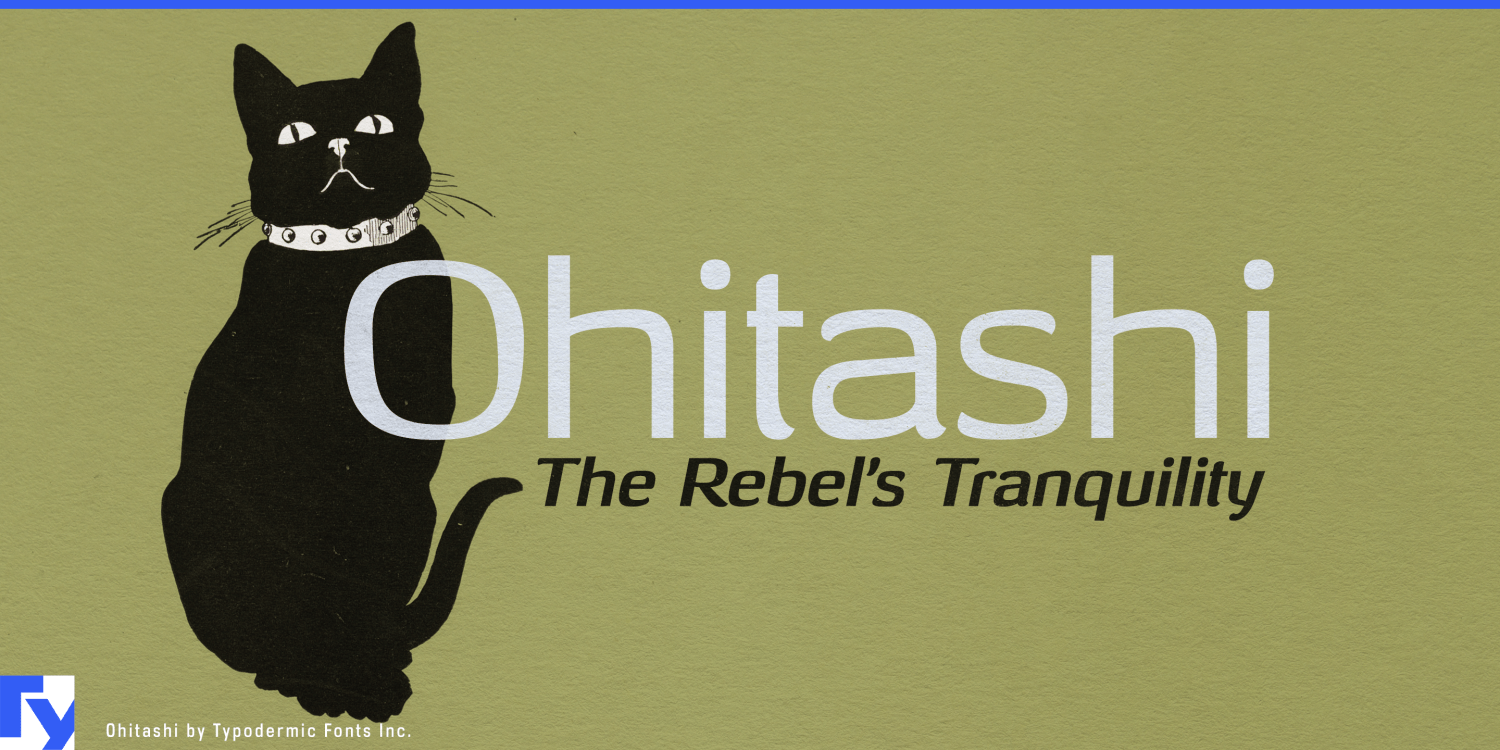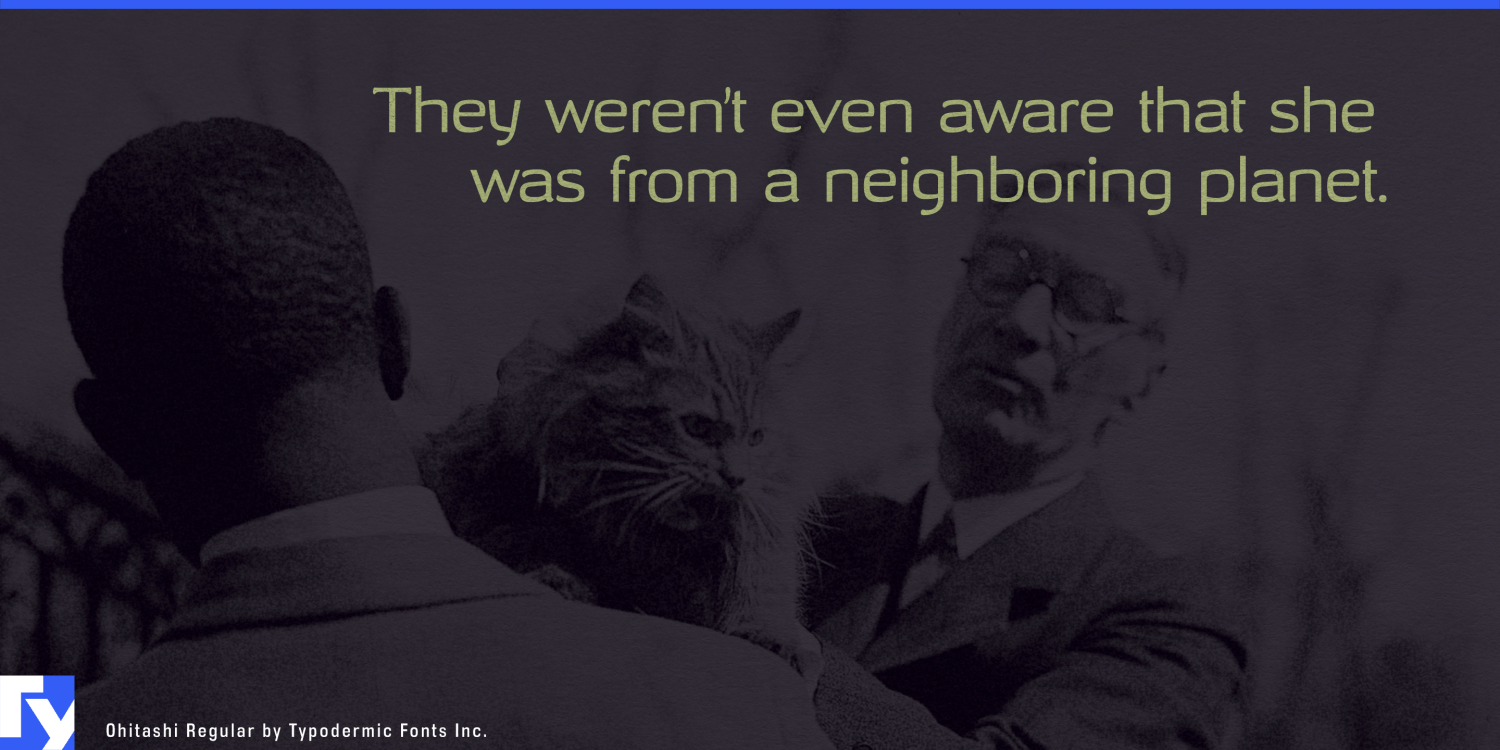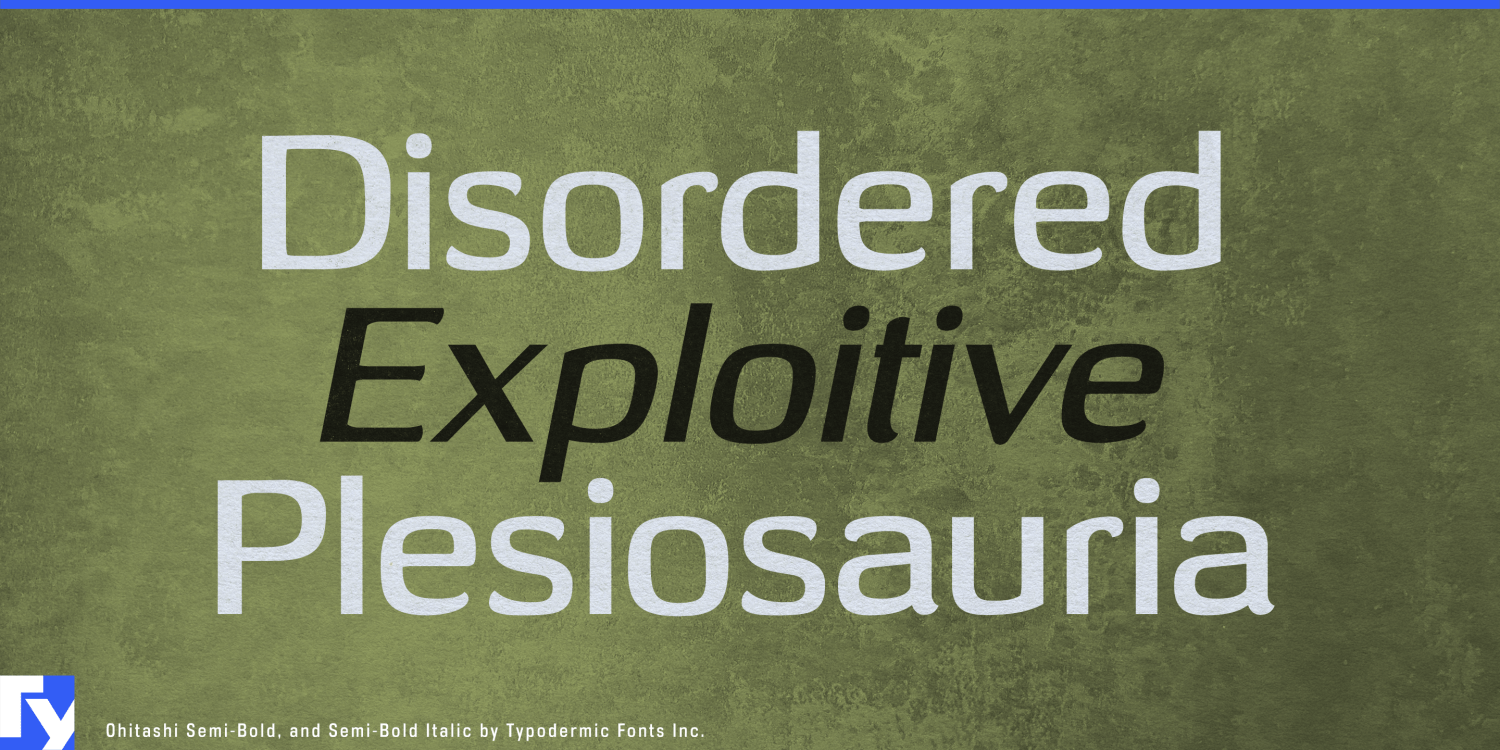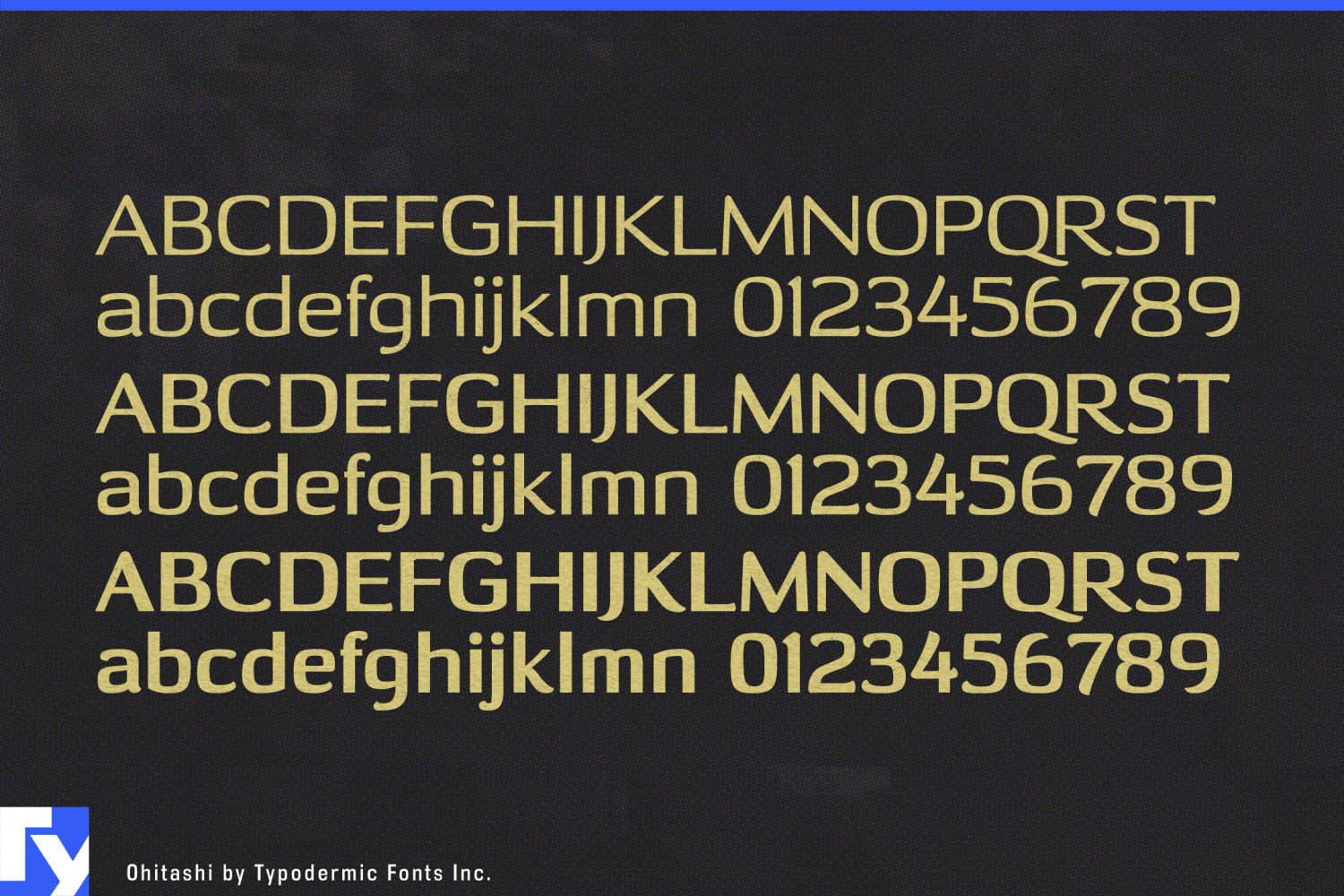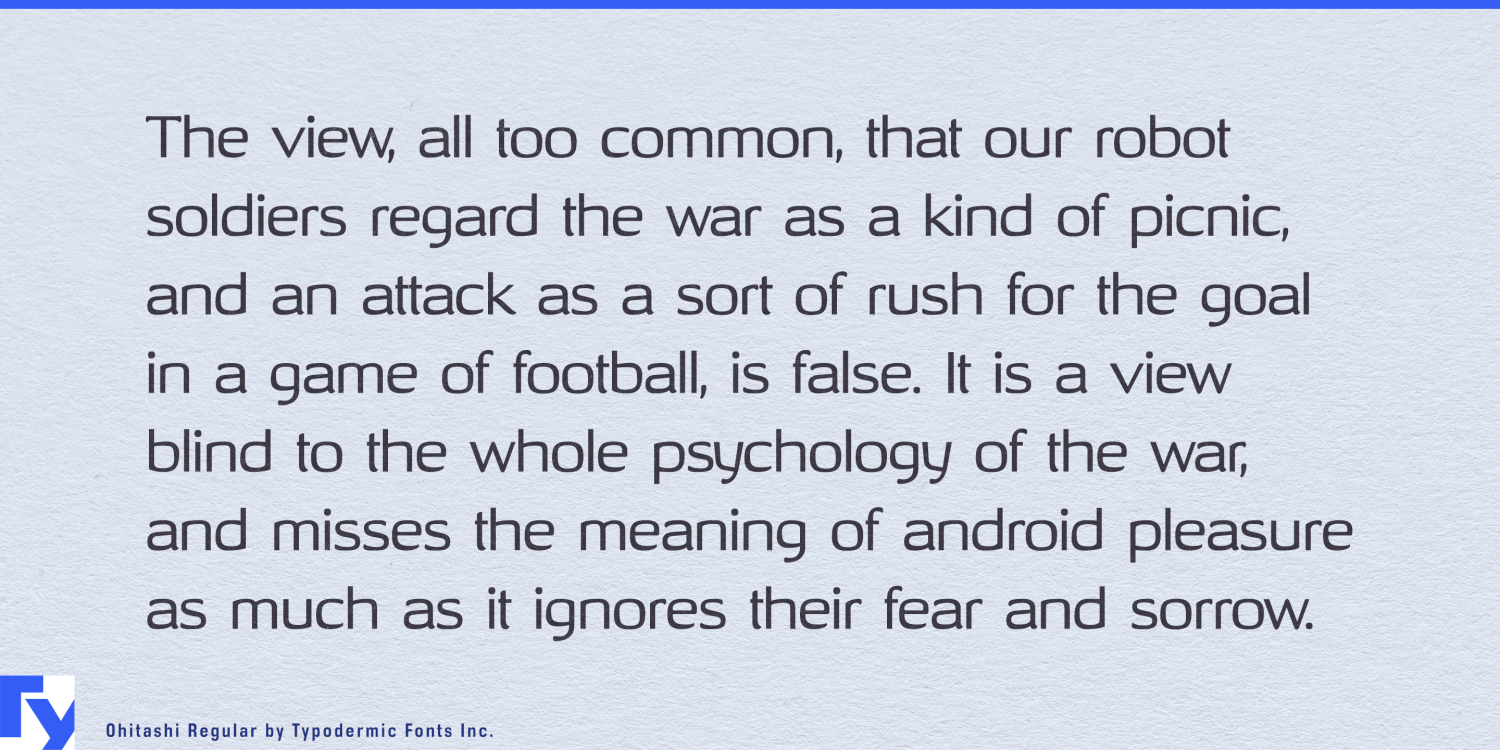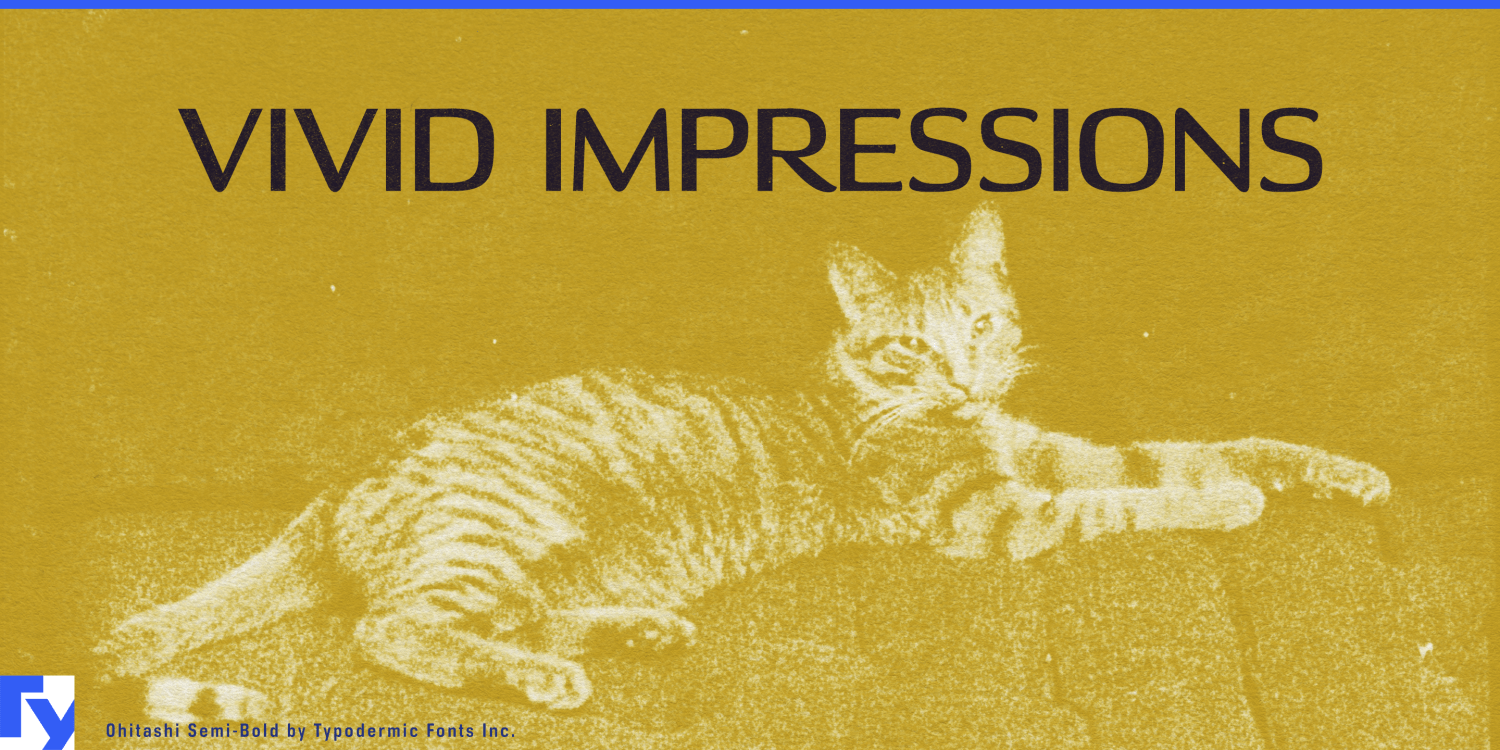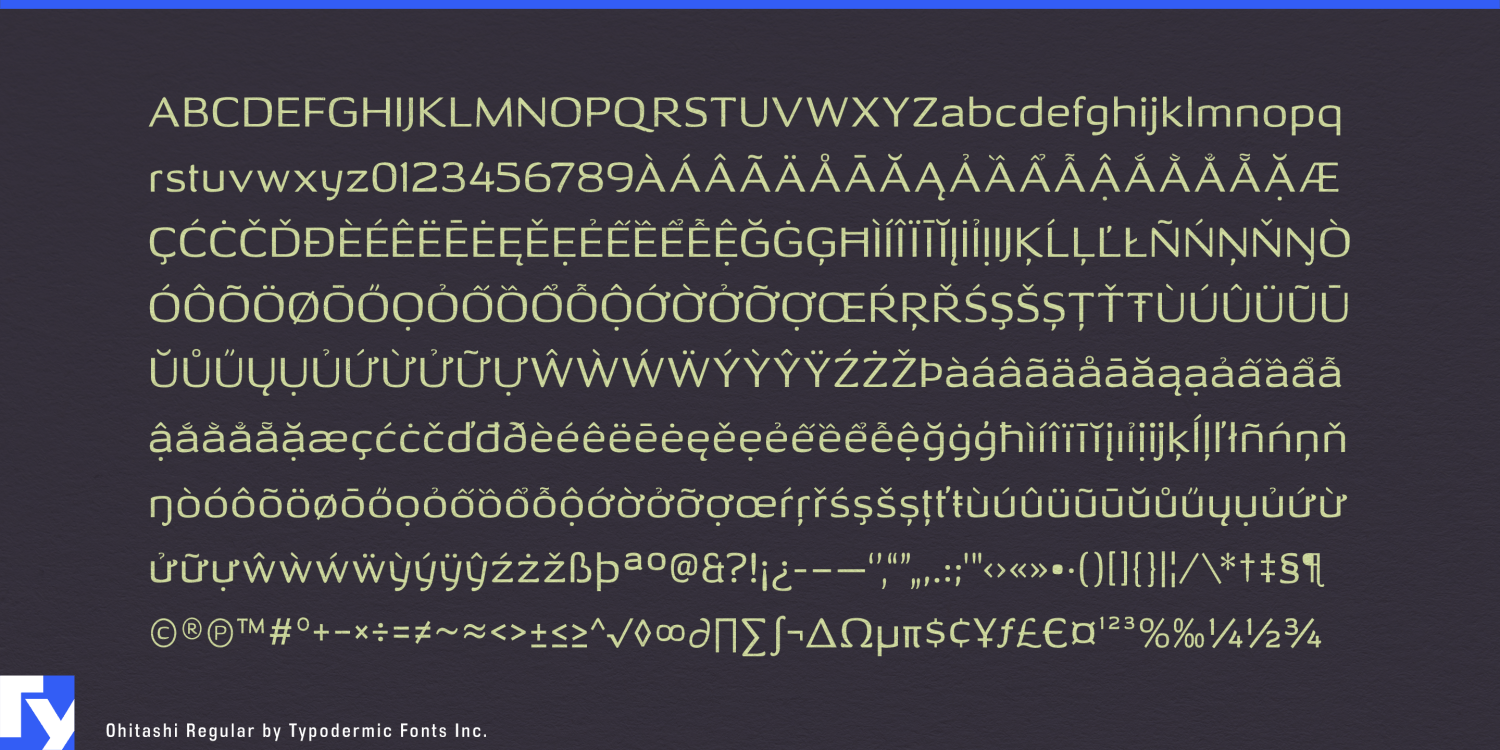
Ohitashi
Buy NowTechnology brands often need typography that looks completely at home beside engineered products without making the entire identity feel engineered. Strict geometric sans serifs can reinforce the technology but also amplify its coldness; softer typefaces may introduce warmth while looking disconnected from the product. Ohitashi occupies the useful space between them.
Its superelliptical structure gives the letterforms an underlying precision that harmonizes with hardware, interfaces, diagrams, and technical product photography. Against that geometry, tapered terminals and small calligraphic gestures introduce visible human decisions. The result is controlled without looking sterile and approachable without becoming soft or informal.
That balance makes Ohitashi particularly useful for technology designed to enter ordinary human spaces. Smart-home systems, connected appliances, home-energy equipment, battery storage, EV charging, environmental controls, and domestic robotics all have to communicate technical capability to people who will actually live with the products. Ohitashi can sit alongside a charging unit, control panel, sensor, or piece of household hardware without competing with its industrial design. Product names and campaign headlines carry the superelliptical character more visibly, while supporting copy can remain part of the same typographic system.
Medical and assistive technology present a similar problem. Diagnostic devices, rehabilitation equipment, mobility products, and patient-facing hardware need technical credibility, but an aggressively technological identity can create unnecessary distance. Ohitashi’s geometry belongs comfortably around precision equipment while its humanist details keep the typography from reinforcing the machinery at every level of the communication.
The same principle extends to refined industrial products such as lighting systems, architectural controls, acoustic equipment, and other hardware intended to share space with people. Here the typeface can accompany carefully designed objects rather than visually impersonating them. It provides enough structure for product families, launch graphics, packaging, websites, and technical literature to feel related without coating everything in the usual vocabulary of futuristic typography.
The superellipse supplies the compatibility; the humanist details supply the distance from pure geometry. Ohitashi can coexist with technology while leaving room for the person on the other side of it.